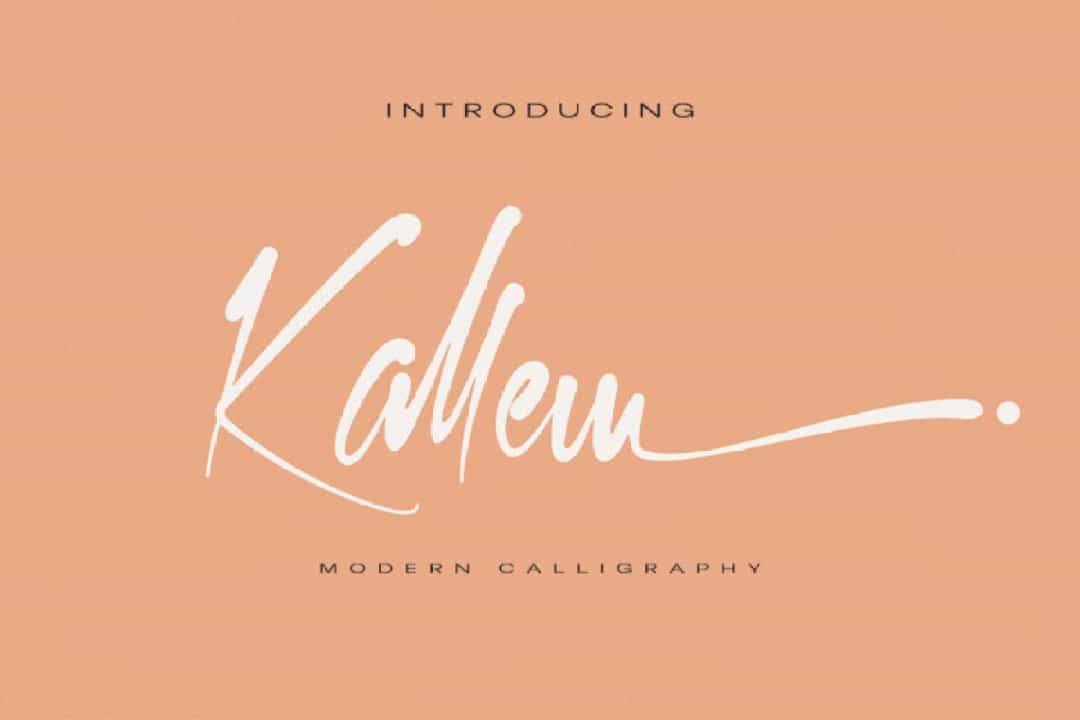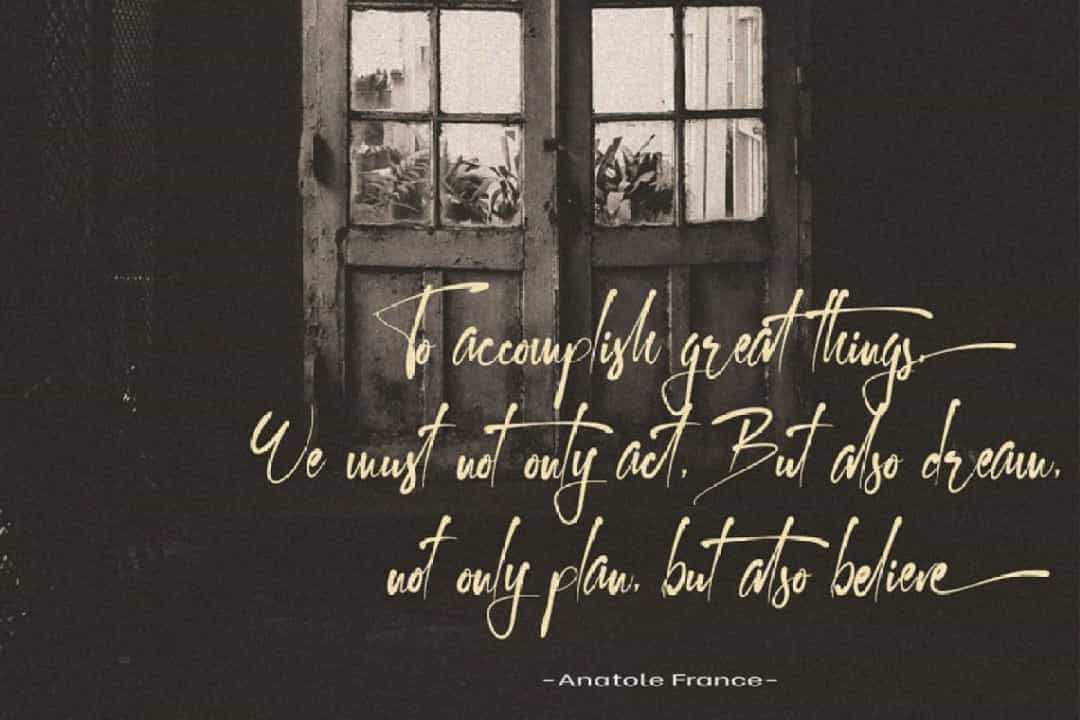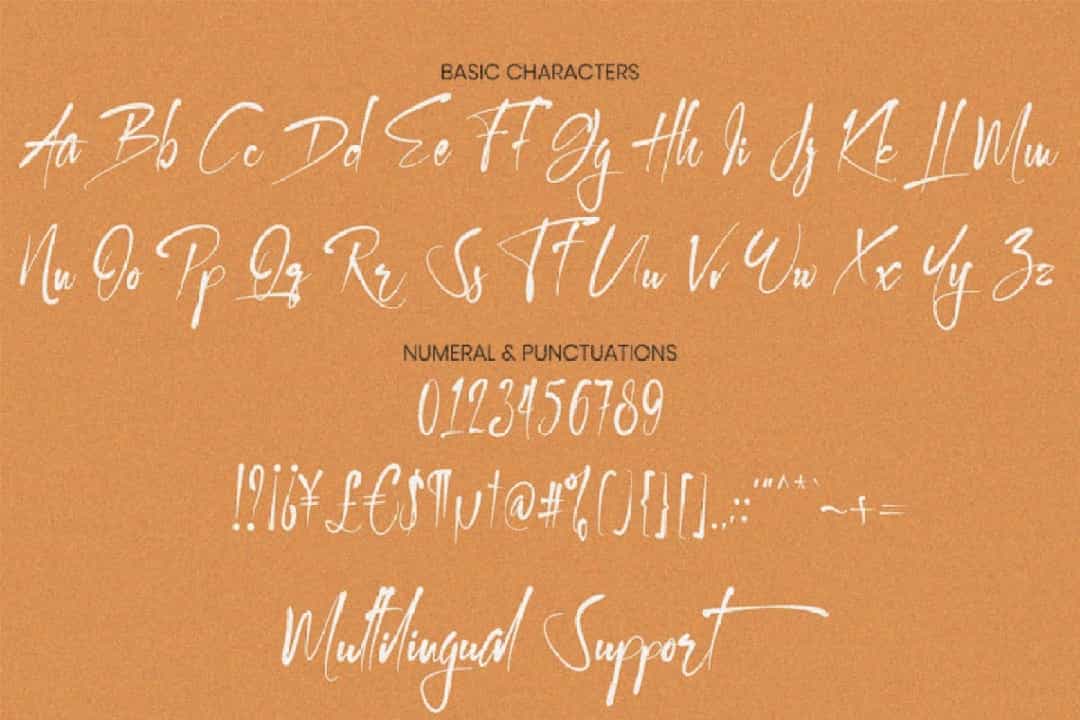
Kallem is the beautiful handwritten script font that is used extensively in the design community and has gained popularity quite fast. Combining the style of the beautiful calligraphy with the modernity and trends, you will be able to fall in love with the Kallem and make all your works better!